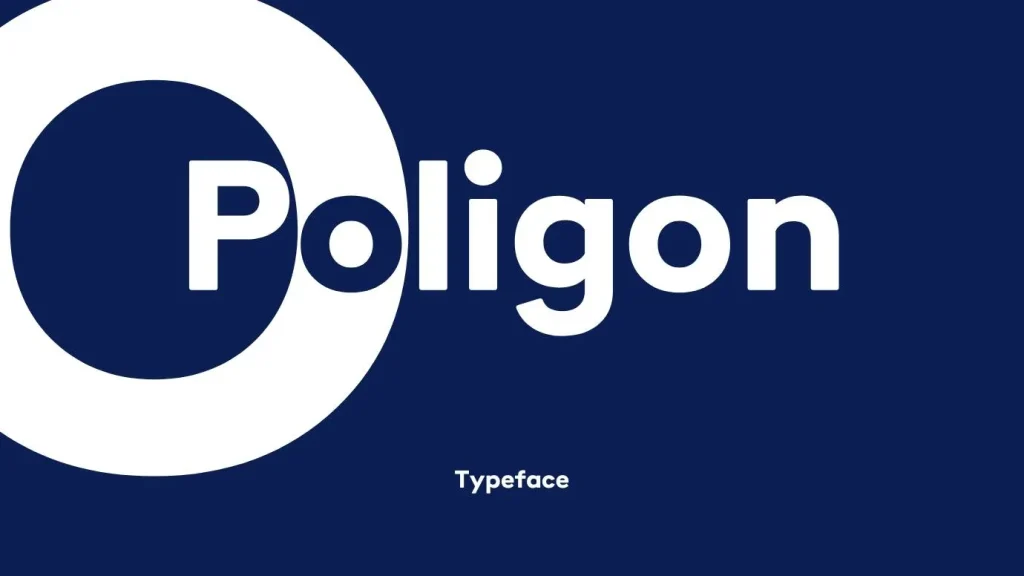
Poligon Font has been used in a variety of types of designs for many reasons. Your simple designs will look bold and stylish with them. Due to its extra bold characters, it works well for titles and headings of various types of websites, blogs, web pages, and personal text documents.
This sans-serif design has medium thickness and is ideal for body text, while more impactful editions highlight info or highlight headings or details. Such visually rational models are planned to blend perfectly with respectively diverse.
It matches a wide range of designs due to its beautiful and well-balanced characters. There are beautiful glyphs, smooth lines, and stunning alternates in a font. This advanced version of a classic font comes in an adaptable sort that can be utilized for a wide range of purposes.
The font was initially outlined for features but besides measurements superbly for longer writings, such as body content for books and magazines that require notable potential.
Why is the Poligon Font So Famous?
Several designers use this typeface for generating movie artworks and book covers. It’s highly readable at large sizes but still retains its personality at smaller text sizes. This font also supports multiple languages. This font is highly readable and perfect for any project.
This typeface is normally used for making captions, brief idioms, and labels. The typeface has come to be an iconic style it has a beautiful design. It’s often used for branding and publicity and marketing purposes.
More Details About the Structure of Poligon Font
Because of its texture and tough letters, the typeface was used for numerous applications. It’s an amazing typeface for commercials, artwork for films, and other cinematic banners.
You can also utilize this typeface for developing invitations, blog designs, advertising outlines, branding, notebook outline, artwork, card designs, unique events, birthday card designs, pillow designs, mug designs, and so on.
This is a fun and joyful typeface that is sure to add some excitement to your next design project. So, you should have tried it and have fun.
What kind of font is Poligon Font?
Poligon Font has been used in a variety of types of designs for many reasons. Your simple designs will look bold and stylish with them. Due to its extra bold characters, it works well for titles and headings
Where Can I Utilize the Poligon Font?
Several designers use this typeface for generating movie artworks and book covers. It’s highly readable at large sizes but still retains its personality at smaller text sizes.